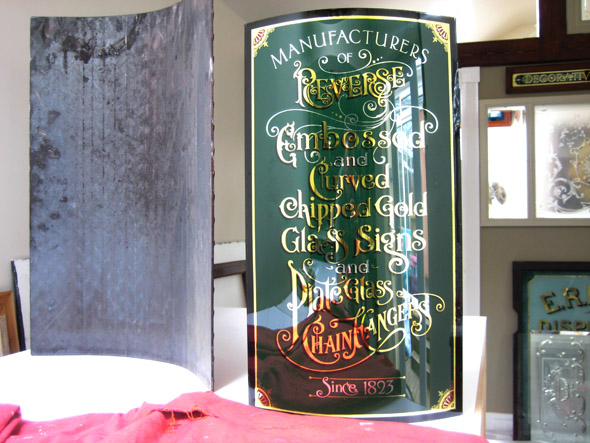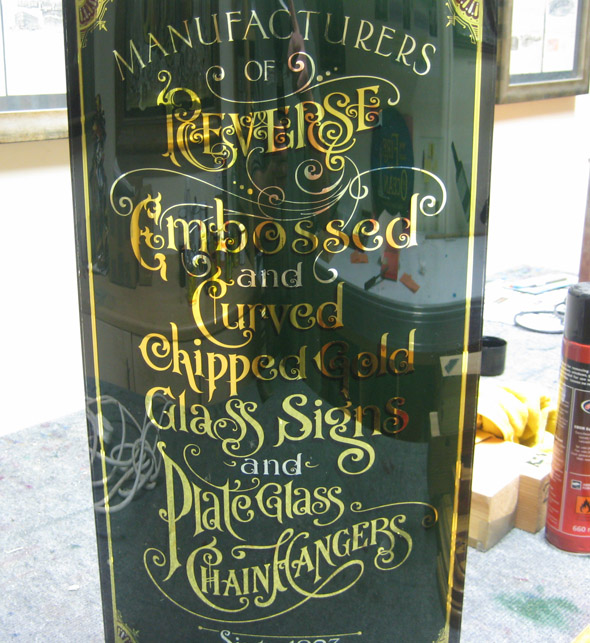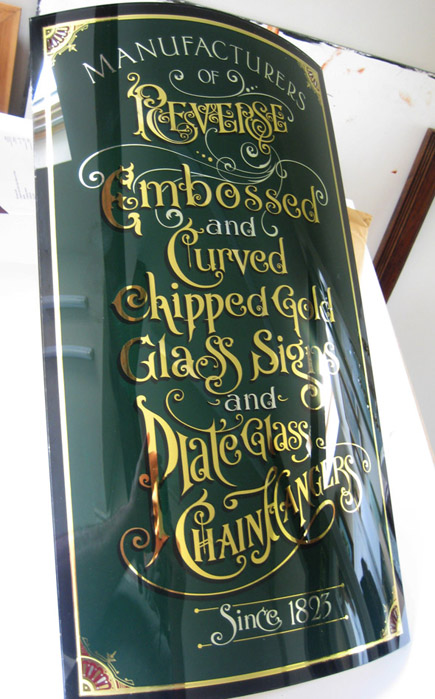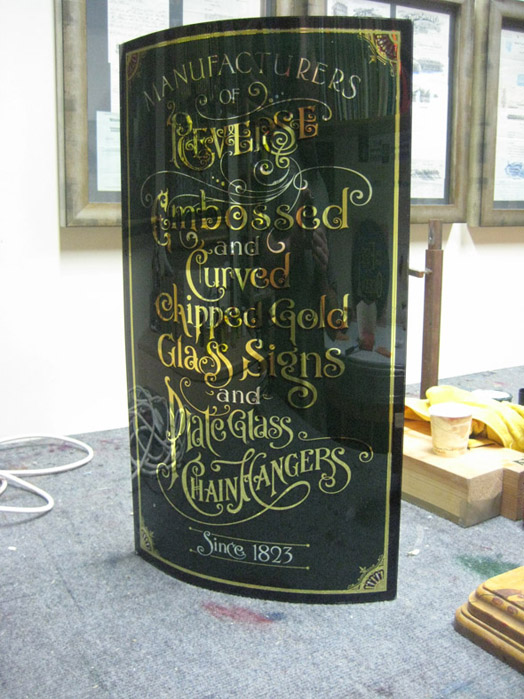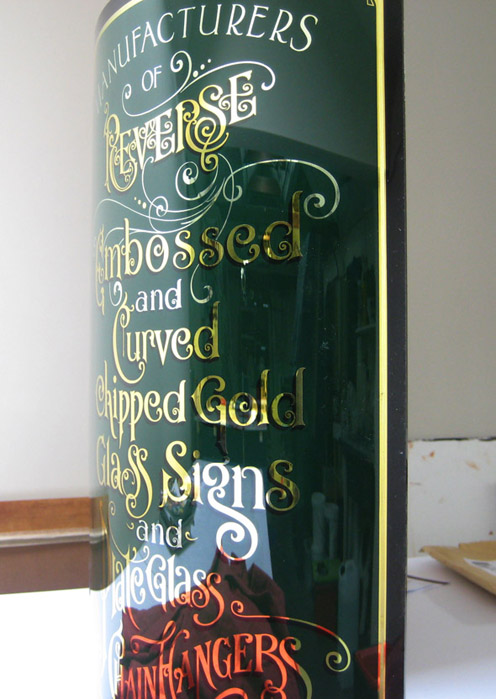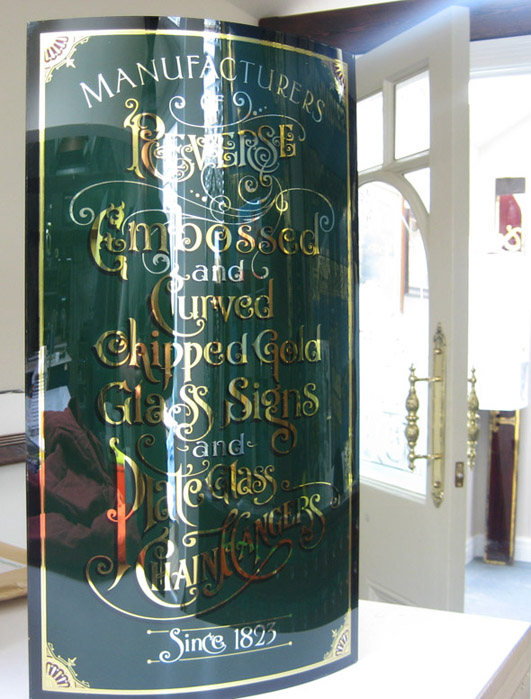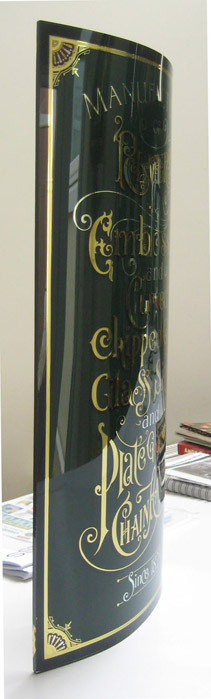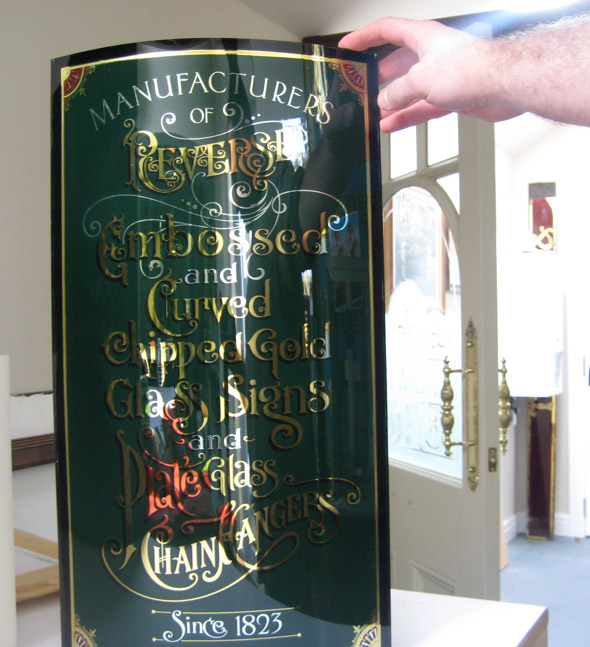
Curved gilded advertising
I have been busy recently with making curved glass panels which were then kiln fired.The glass was just coated in black and then fired ,a total of 12 were made for a company who needed glass to go round posts inside a shop for a card display. Thought it would be a good opportunity to make a sign with the same paint and technique .I put together a design and worked it up on the computer and then cut a mask for the letters .after applying the letters I hand painted the shade and then the background and surrounding text edge upto the wet edge of the shade.I pulled off the mask leaving a sharp clean edge and then fired the glass to bake the paint into the surface and curve it at the same time. Afterwards I varnished in a line between the painted border and once dry wire wooled it to turn it matt white ,once this was solid dry I gilded the piece in 16,18 and 24 crt gold... came out looking very old.Next time will probably add some mica acid etching to the letters and some cutting to enhance this type of corner sign. A friend is making me an oak curved frame to finish it off.
showing the metal former which is just a piece of checker plate flooring
but using the revers side .Bent this sheet in a friends metal press in 1'' increments with small amounts of controlled pressure
some more images of the glass.
Yes Smitty........you ARE right out of your mind. As always another great job and photos to go with it. You'll have to post a few (photos) of the card shop for us. It's always encouraging to see "real" jobs as cool as this art piece is.
Beautiful as allways. Very nice letters, and a fine example of using mostly letters only to create a beautiful layout.
Thanks guy's .Doug it was just curved glass and painted black and kiln fired no text was on them so I never photographed them as they were just curved basic glass panels. This piece was just a play piece and an experimenting project I guess.
Another Dy-NO-Mite job!
Jerry the artwork was originally an old letterhead which i changed the layout and added more text and scrolls. they seem to look the part on the curved signs. I'm looking for other designs which would suite the same process if any one has any?
Dave- I am not fit to clean your brushes-
Top class work.
Mr. Smith.
I want my glass slumped.
And I am ready to pay your price to learn to do so.
Nice piece, Dave.
You painted first, then fired and slumped, correct?
With one-shot? japans?
Gilding after slumping and cooling...
I'm going to experiment with that myself here, on a smaller scale first.
That's just crazy.
You think a man who brilliant cuts, chips, etches and gilds isn't crazy?
Maybe. Maybe not.
So, tell me Mr. Smith, how long have you been making exquisite glass signs for a living?
If I ever get the money, I'd like to get a kiln.
And before my eyes rot, I'd like to try some of your masterful techniques!
Guess there's really only one thing left to say.....CRIKEY (again)!
...it's easy to find you! You leave a trail where ever you go...Bright shiney gold signs!
By the way, ...Can you slump your toned etching and brilliant cut pieces?
Thanks you men of Machine, Tony I used a glass paint which is ground . I bought it from a supplier for kiln fired glass.
You know it really is very straight forward to bend these smaller panels but the bigger ones probably need some working out.Larry yes they will all slump but the chipping toning and cutting is always done first. I bet Doug has some bent panel pics in his archive he might post here...........
I have one to make for a friend in France but it is bigger than the ones I have done.
IT will read
Fabrication et Restauration, Tous Styles Anciens & Moderne Francais &Anglais. will try to make it look this french by using French Embossing and curved gilded and painted black 4'x4' ,it will hang in an auction house for cabinet restoration. will post a pic if I get to start it this year.